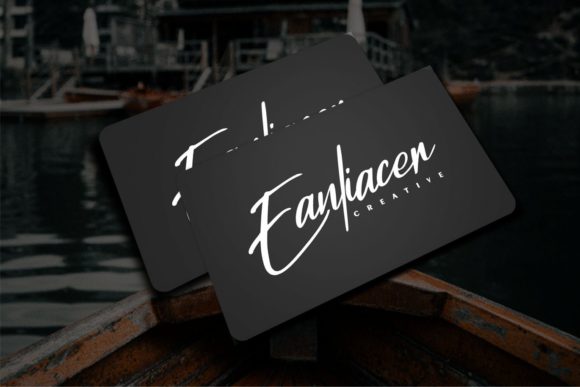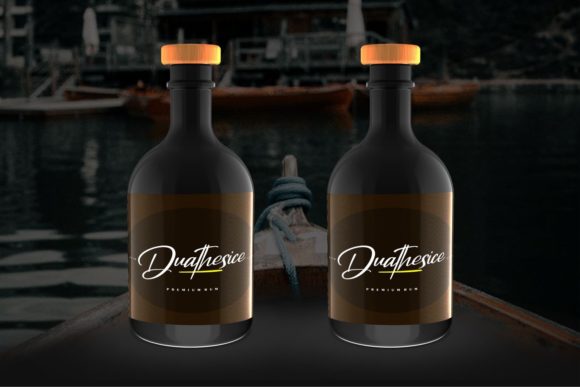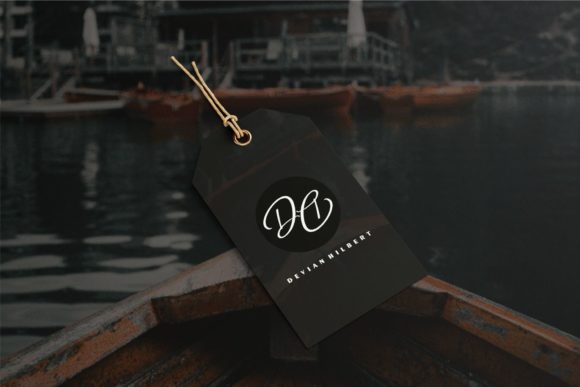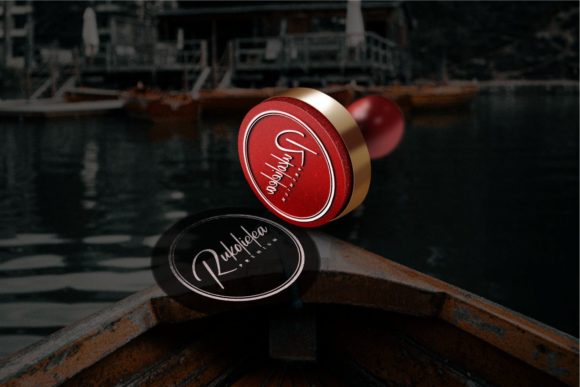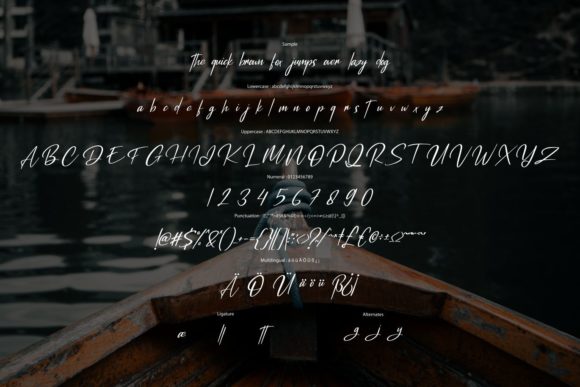
Duclking Font
Picture a font that effortlessly balances charm and elegance, creating a visual masterpiece suitable for a myriad of design projects. This font transcends being a mere typeface; it’s a manifestation of sophistication, enhancing the allure of wedding invitations, thank you cards, quotes, greeting cards, logos, business cards, and any design yearning for a handwritten touch.
The font’s enchantment lies in its innate ability to captivate with charming strokes while exuding a timeless elegance. Applied to wedding invitations, it transforms these pieces into veritable works of art, setting the perfect tone for the most special day in a couple’s life. The graceful curves and meticulous details bring a level of sophistication that is not only captivating but also eternally memorable.
Thank you cards take on a new dimension of warmth and personalization with this font. Its handwritten touch adds a unique feel, turning simple expressions of gratitude into heartfelt and unforgettable messages. The font elevates the art of conveying appreciation, ensuring that each card becomes a cherished keepsake.
Quotes come alive with a poetic flair as the font gracefully weaves words into a visual tapestry. Its charm extends beyond individual letters, creating a harmonious dance that enchants readers. Whether featured on posters or social media graphics, the font turns mundane words into impactful statements, leaving an indelible impression.
Greeting cards are transformed into sentimental treasures as the font infuses them with elegance. Birthdays, anniversaries, or celebratory occasions become more memorable when paired with a font that mirrors the warmth of a handwritten note. The intricate details and graceful flow ensure that each card is a unique work of art.
Logos and business cards benefit from the font’s ability to convey professionalism with a personal touch. It seamlessly merges sophistication with approachability, making a brand or business instantly recognizable. The handwritten aesthetic adds a human element, forging connections with clients and customers.
The font’s PUA encoding is the pièce de résistance, granting designers seamless access to an array of glyphs and swashes. This functionality allows for effortless customization and enhancement, ensuring a unique and tailored result for every project.
In essence, this font surpasses its role as a mere typeface; it’s a design companion that transforms ordinary projects into extraordinary works of art. With its charm, elegance, and versatility, it has become an indispensable tool for designers seeking to infuse their creations with a handwritten touch that elevates the ordinary into the extraordinary.